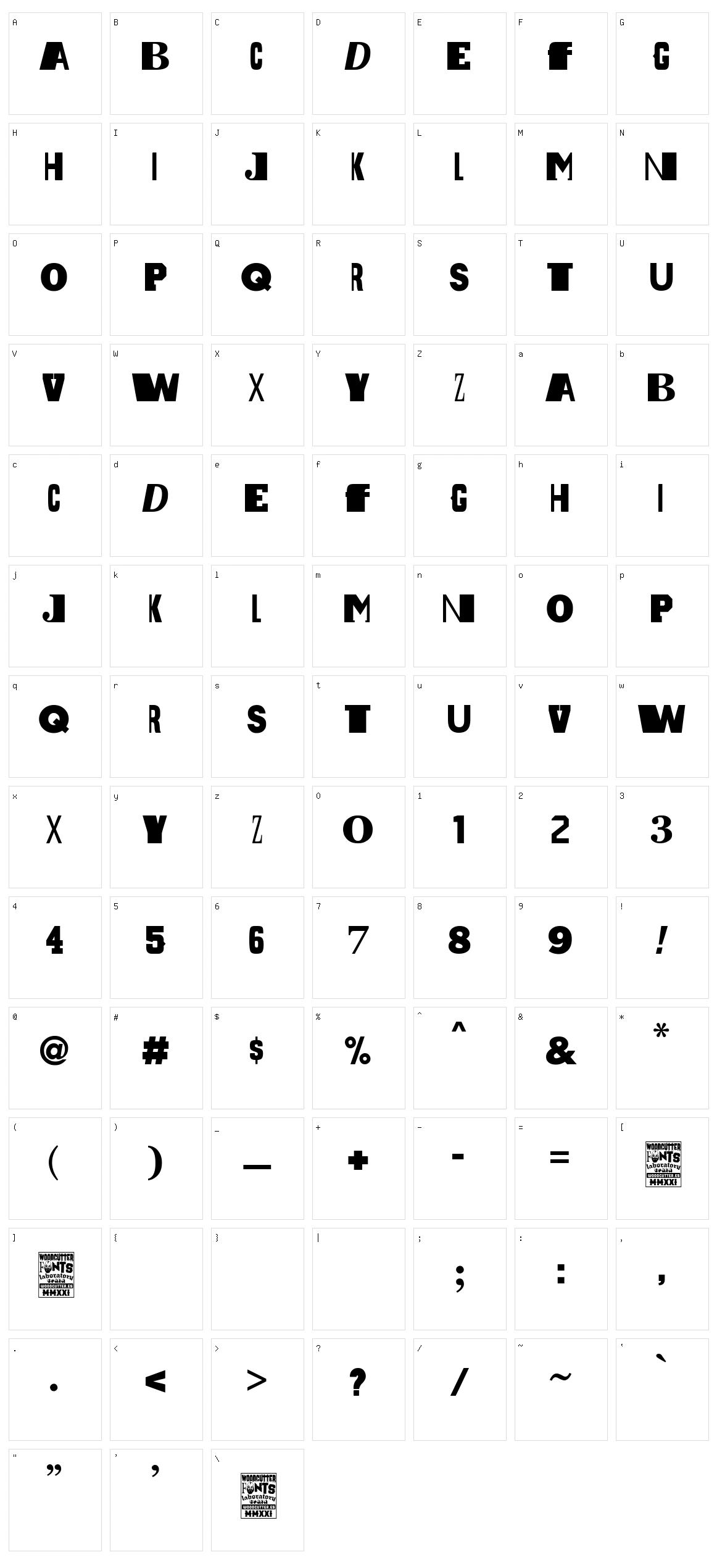
The free font Dada is the new Black is carefully designed by Woodcutter, showcasing a thoughtful balance of creativity and usability and falls under the Distorted font style. When you download the ZIP file, it contains only 86.88 KB of font files, making it lightweight and quick to download. Please review the license details below to understand permitted usage and distribution rights. If license information is not available, we recommend using this font for personal projects only or contacting the author directly for commercial usage permissions.